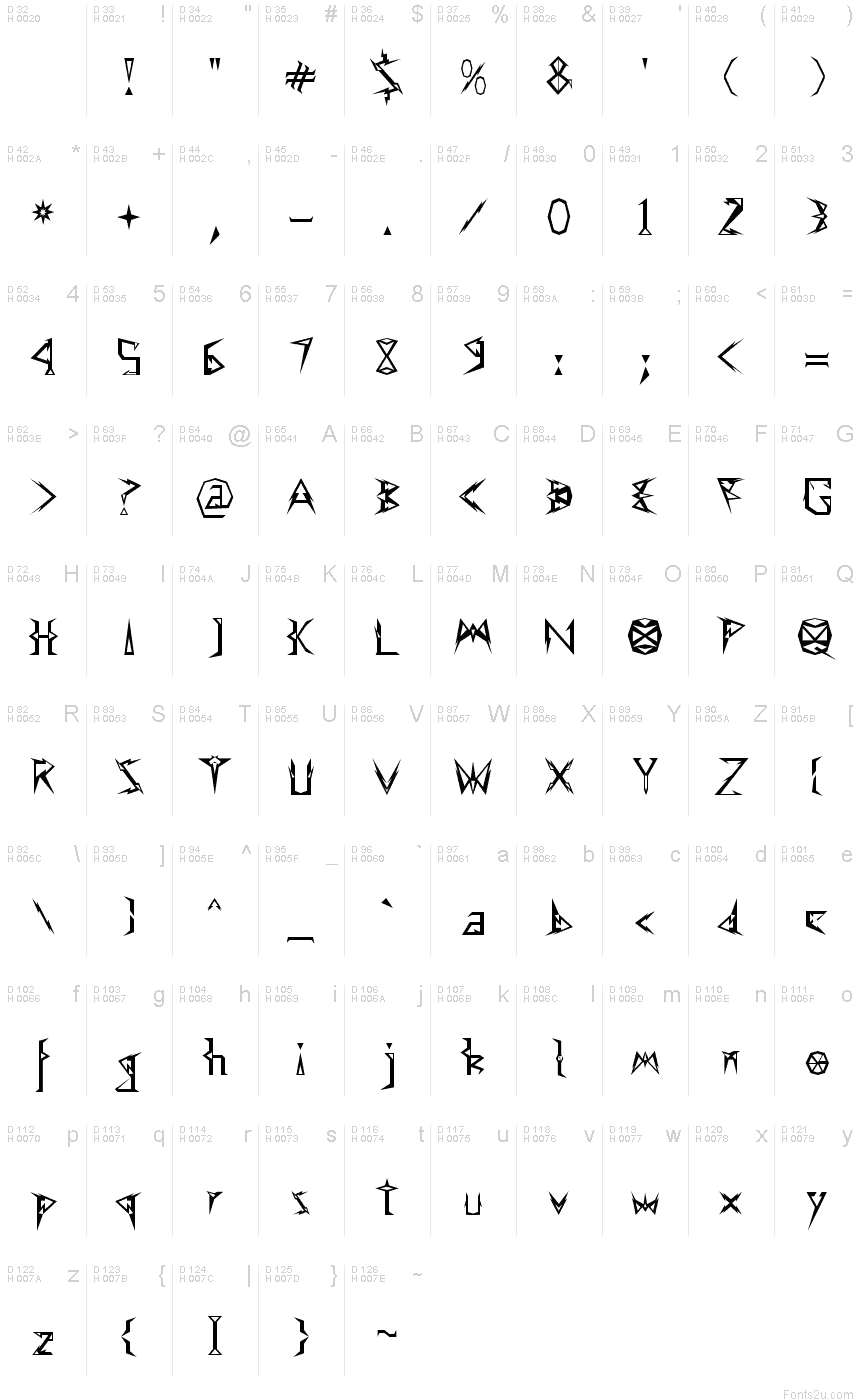
Effexor
Effexor font by Apostrophic Instances is a free gothic decorative typeface, available in various cuts, with jagged, blade-cut strokes and sudden right angles that feel carved into stone. The letterforms carry a tense, rune-like rhythm, with flashes of occult geometry that add bite without going blurry.
Using Effexor, keep headlines big and give it a little extra spacing, then pair it with a plain sans for body copy. This free font shines on metal band logos, horror or dark-fantasy posters, game titles, album covers, tattoo-style graphics, Halloween promos, and gritty sticker designs.